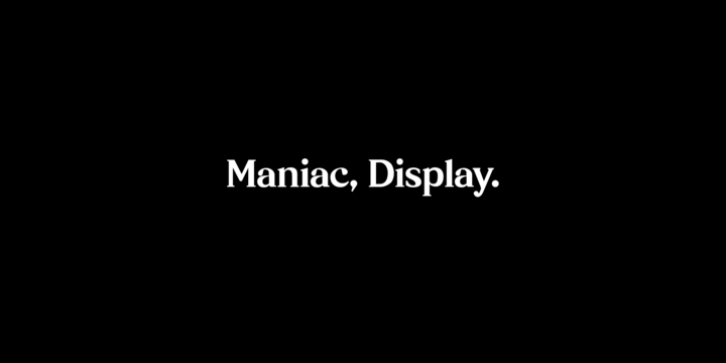
Hand crafted in Amsterdam amongst the winter canals, Maniac Display represents the best of modern serif aesthetic with a big feeling of movement. Sharp, full and quirky, it’s everything you want out of a display font. It looks amazing at large sizes and, also, small sizes.
Maniac has 36 punctuation marks, 57 uppercase letters, 60 lowercase letters, 17 symbols and a full number set. It supports 17 languages; Basque, Catalan, Danish, Dutch, English, Estonian, Finnish, French, Frisian, Galician, German, Irish, Italian, Norwegian, Portuguese, Spanish and Swedish.
The difference between each weight is intentionally more subtle, for maximum impact at larger sizes. Maniac is best displayed with large text and is suitable for branding, magazines, products and anything else you can imagine. Maniac weights are sold separately and together.